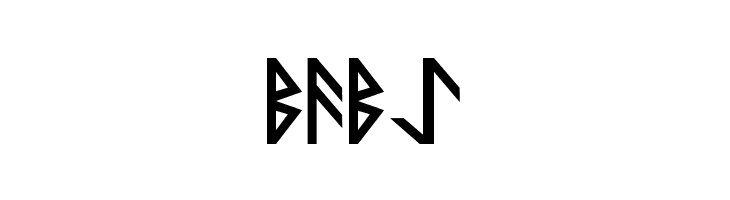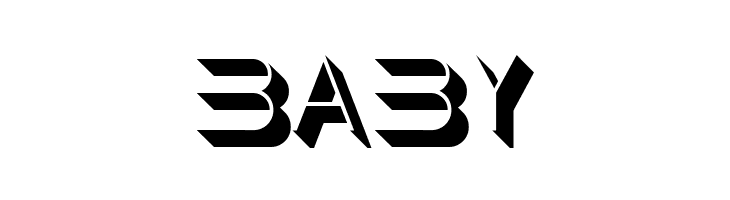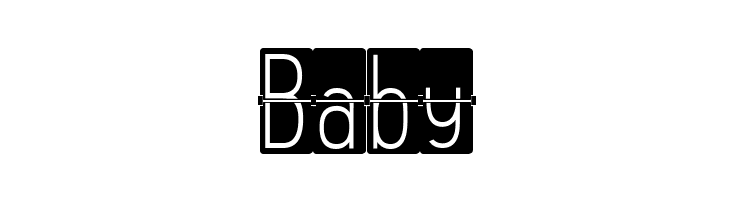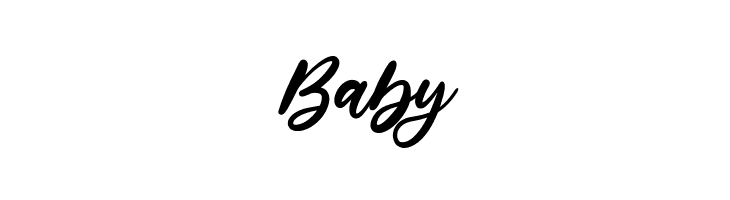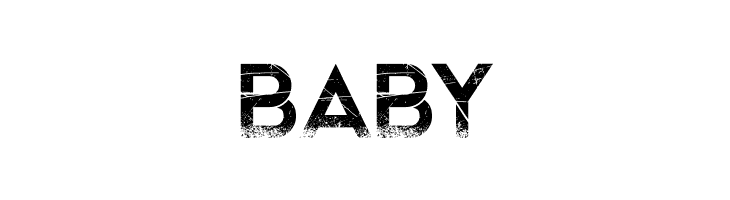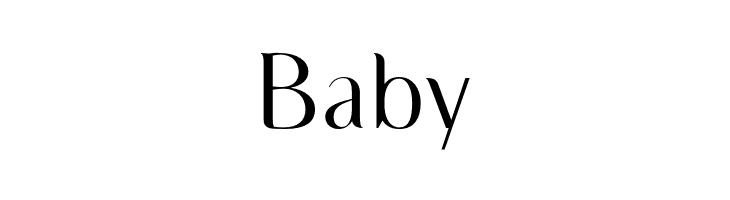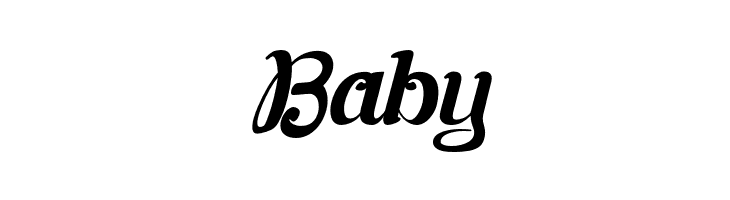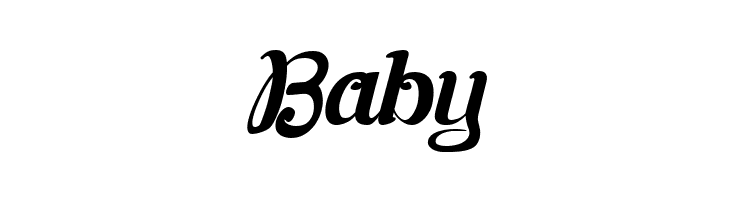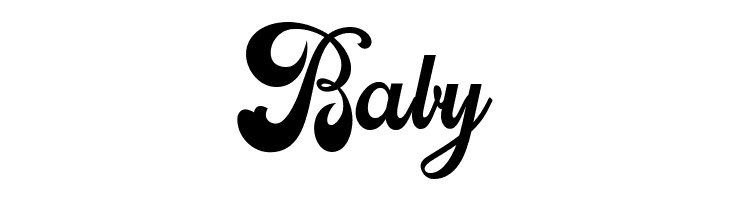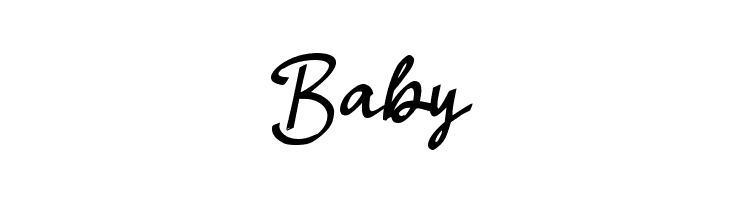
A bold, flowing script font with elegant, cursive letterforms and high contrast.
An elegant and fluid script font with smooth, flowing strokes.
A bold, handwritten-style font with dynamic, slanted characters.
A bold, geometric, and condensed font with a futuristic style.
A bold, geometric, and italic font with a modern, dynamic style.
A bold, geometric italic font with sharp angles and a futuristic style.
A retro, monospaced font inspired by vintage flip clocks.
A mechanical, structured font inspired by vintage flip clocks.
A bold, distressed font with a vintage, textured appearance.
A bold, high-contrast font with a modern and classic appeal.
A bold, italic serif font with a dynamic and elegant style.
A modern, high-contrast serif font with elegant and sophisticated styling.
A sleek, italic font with moderate contrast and elegant curves.
A playful, hand-drawn style font with bold, rounded strokes.
A raw, expressive font with a hand-drawn, graffiti-like style.
A bold, tall, and modern font with a sleek and elegant design.
A modern, narrow font with sleek, elongated characters.
A bold, runic-inspired font with sharp angles and geometric shapes.
A bold, geometric font with sharp angles and a modern cut-out effect.
Bold, blocky font with a vintage flair, ideal for impactful designs.
An elegant script font with flowing, decorative strokes.
A cursive, handwritten-style font with elegant, flowing strokes.
A decorative font with intricate floral and compass motifs.
A whimsical script font with flowing, artistic strokes and decorative swirls.
An ornate, floral-themed decorative font with intricate botanical patterns.
Hand-drawn floral dingbat set with whimsical botanical motifs.
An ornate, floral-themed decorative font with intricate details.
A decorative font with intricate floral and botanical motifs.
A decorative font with floral and nature-inspired elements.
A bold, decorative font with intricate thorny vine designs.
A cursive, elegant font with a handwritten style.
A modern serif font with elegant curves and subtle contrast.
A decorative font with intricate floral and animal motifs, perfect for artistic projects.
A bold, decorative blackletter font with intricate, medieval-inspired letterforms.